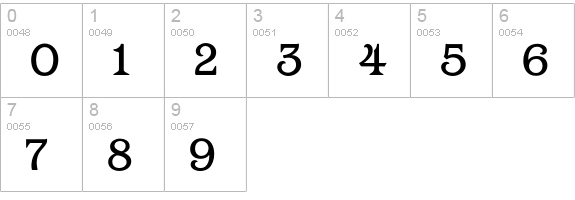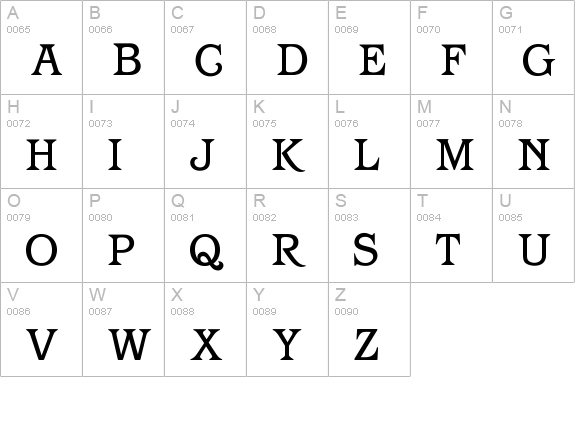
BarcelonaBook Font Details
BarcelonaBook font is a stylish and modern typeface that exudes sophistication and elegance. Its clean lines and sleek design make it perfect for a wide range of applications, from branding to editorial design. The BarcelonaBook font is versatile and easy to read, making it ideal for both print and digital projects. One of the best things about the BarcelonaBook font is that it is completely free to use. You can download this beautiful font for free at FontsMarket.com, making it accessible to anyone looking to elevate their design projects with a touch of class and style. Don't miss out on the opportunity to add this stunning font to your collection today!